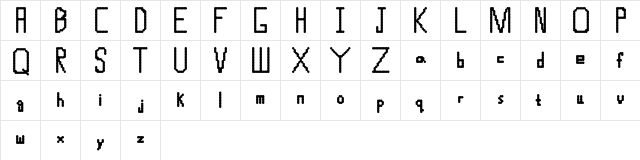
Circle Circle Regular
Design Context for Circle Circle Typeface
Circle Circle takes a measured approach to typography — its balanced proportions and neutral character make it a reliable workhorse for both digital and print work.